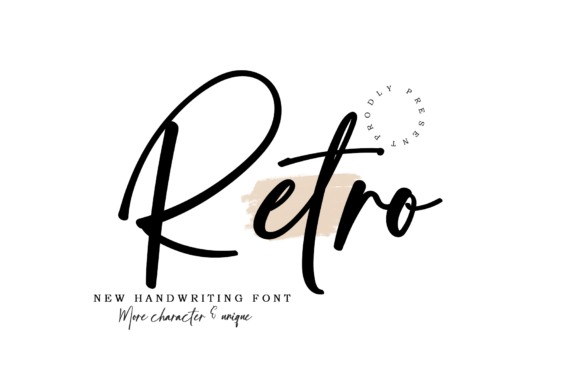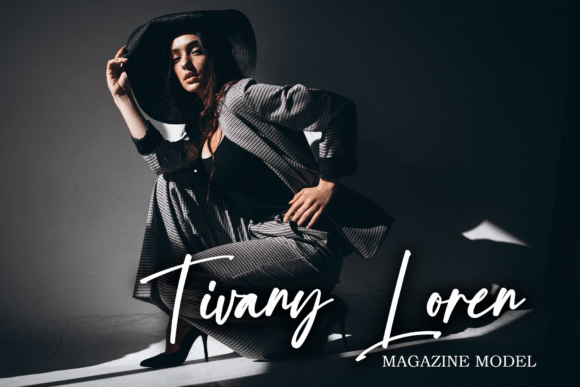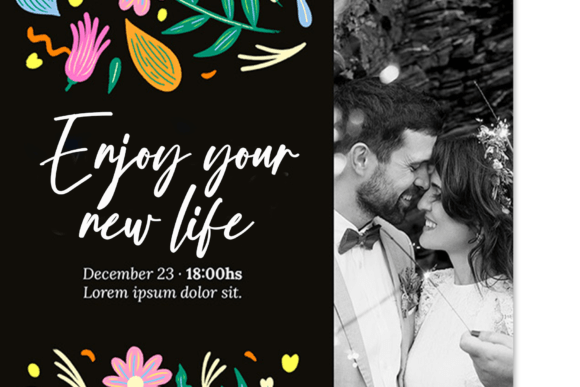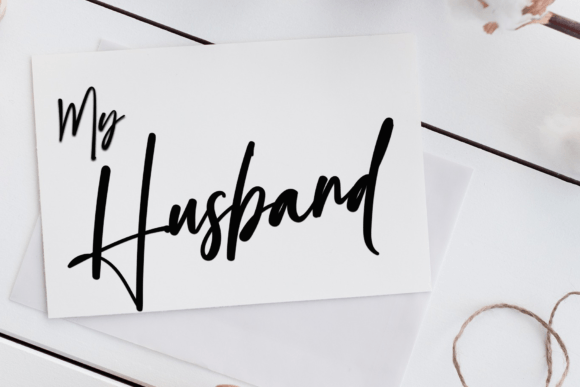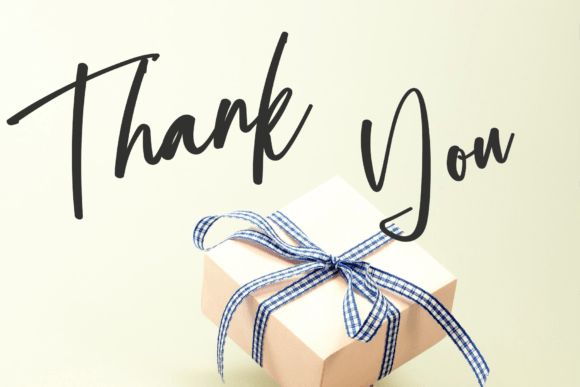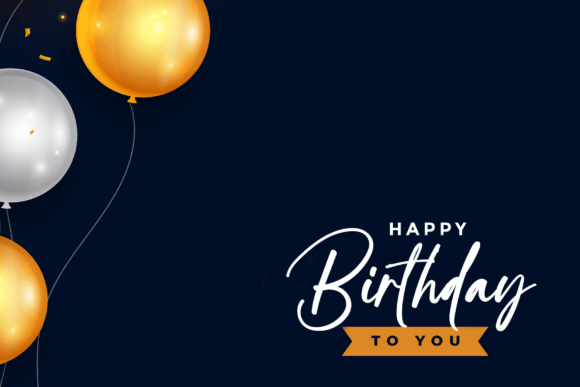
Retro Font
Retro, a stunning handwritten font, emerges as a visual masterpiece that effortlessly elevates your work with its elegant and curvy lines. This gorgeous typeface is tailor-made for a multitude of applications, including product packaging, branding projects, magazine covers, social media posts, weddings, and any context where expressing words above the background is an art form.
The beauty of Retro lies in its captivating design, where each letter is meticulously crafted with an artistic touch. The elegant and curvy lines bring a sense of sophistication and timelessness to your projects, making them stand out in the crowded landscape of design. This font is more than a mere tool; it’s a creative asset that enhances the overall aesthetic of your work.
Imagine the impact of Retro on product packaging, where every label becomes a work of art, or on a wedding invitation, where the romantic curves of the font add a touch of elegance. For branding projects, Retro becomes a distinctive element that leaves a lasting impression on your audience. Its versatility shines through in magazine covers and social media posts, enhancing the visual storytelling of your content.
Retro doesn’t just complement your designs; it becomes an integral part of the narrative. Its gorgeous handwritten style communicates a sense of warmth, personality, and authenticity. The fluidity of the lines creates a harmonious blend between vintage charm and contemporary appeal, making it a font that transcends time.
This font is not merely a tool for expression; it’s a design companion that understands the nuances of creativity. Whether you’re creating a bold statement or adding a subtle touch to your projects, Retro adapts seamlessly. Its ability to express words above the background becomes a form of visual poetry that captivates and engages your audience.
In conclusion, Retro is not just a gorgeous handwritten font; it’s a storyteller, an expression of creativity that adds a layer of sophistication to your work. Let Retro be the brushstroke that defines your artistic vision, making every project a standout piece in the vast tapestry of design.